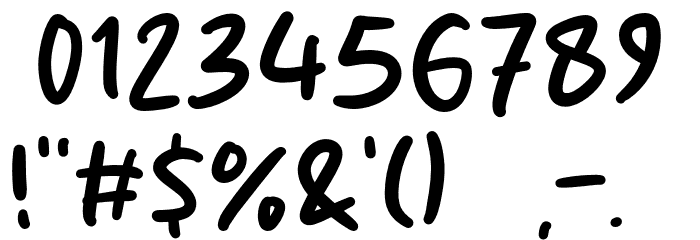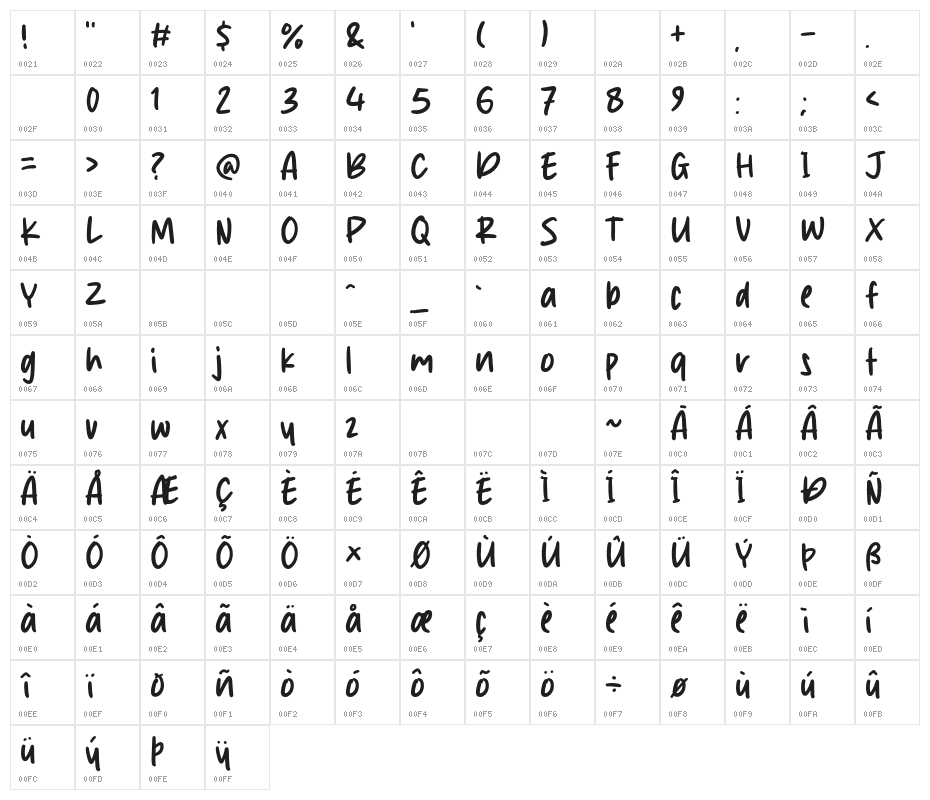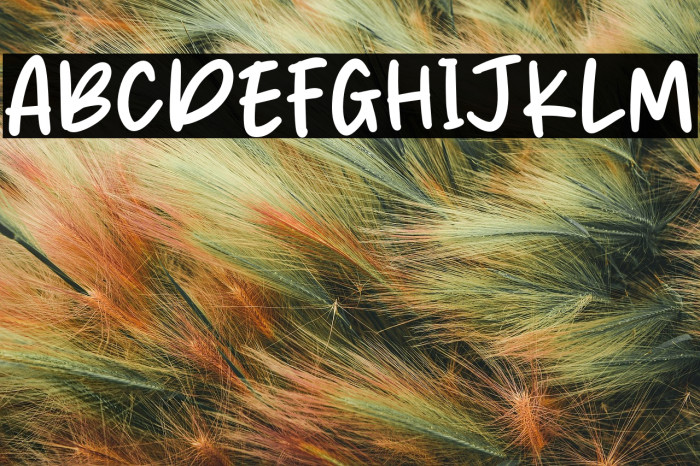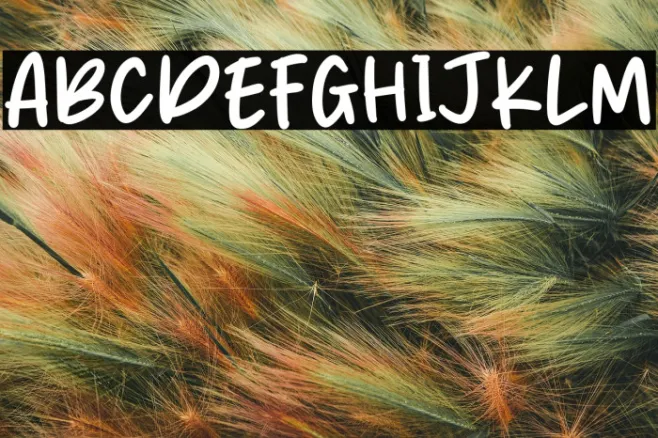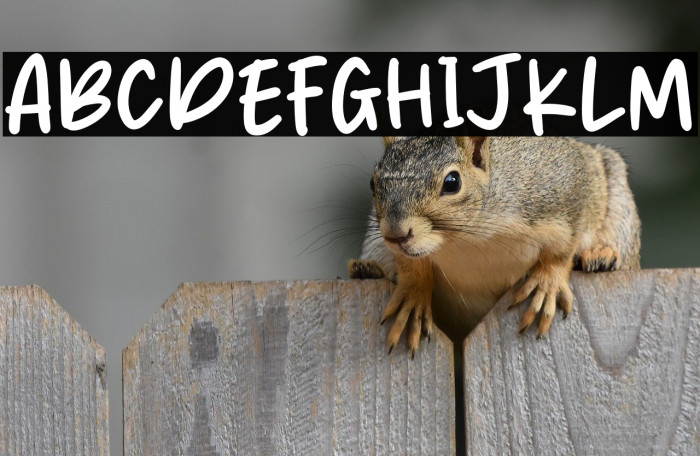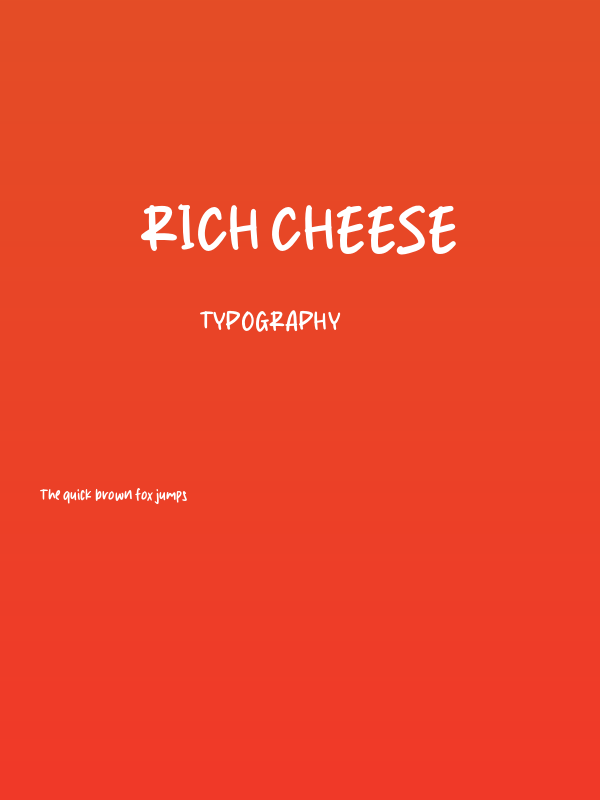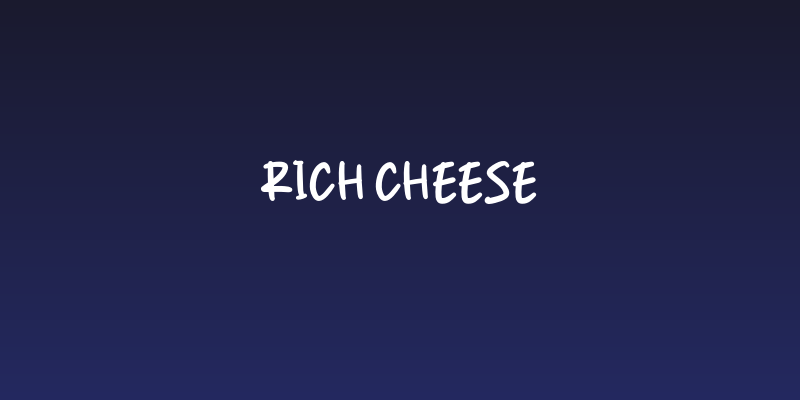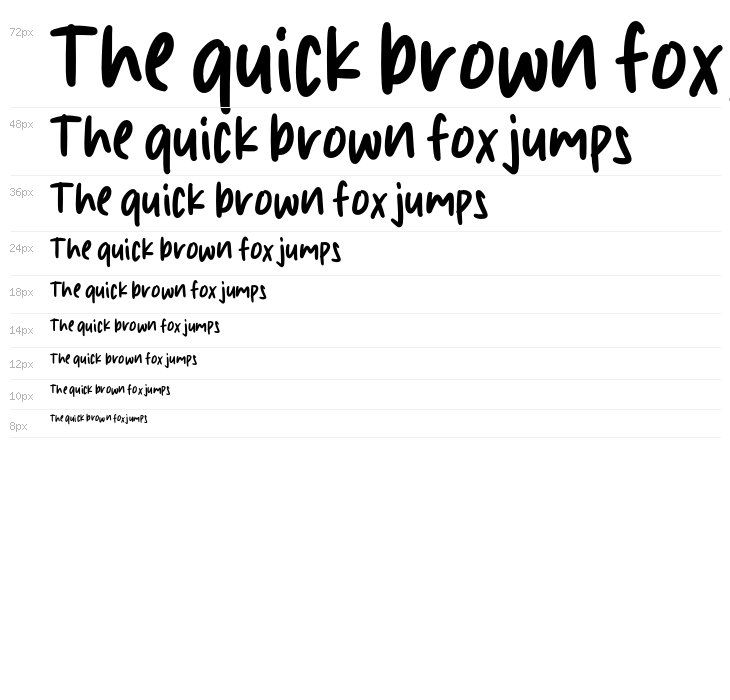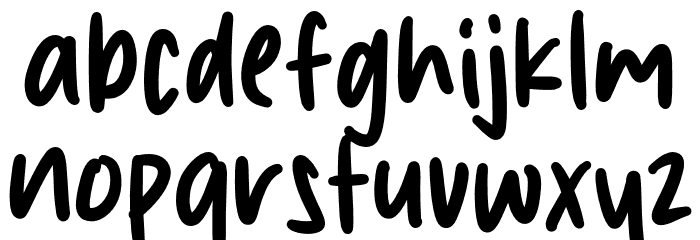
Rich Cheese Font
Rich Cheese Description
This font exhibits a playful and casual handwritten style, characterized by its smooth, flowing curves and slightly irregular letterforms that mimic natural handwriting. The uppercase and lowercase letters maintain a consistent stroke width, contributing to a cohesive appearance. The numerals and special characters are crafted with the same informal flair, enhancing the font's approachable and friendly vibe. Its legibility is maintained despite the informal style, making it suitable for a variety of creative applications.
| Use Case | Logos, Headlines, Informal text |
| Proposed Projects | Ideal for greeting cards, invitations, personal branding, and social media graphics. |